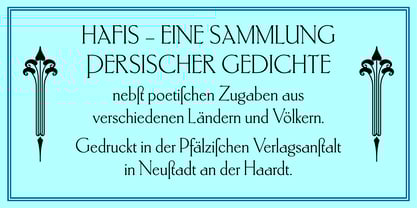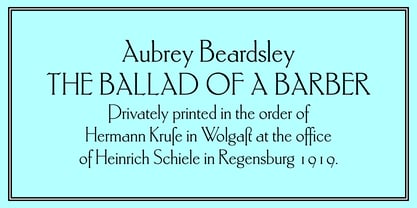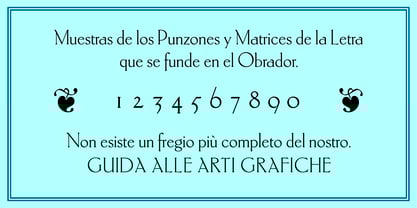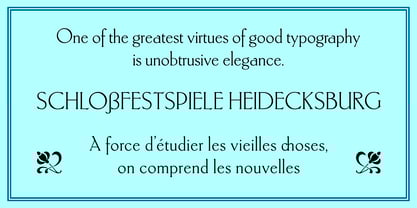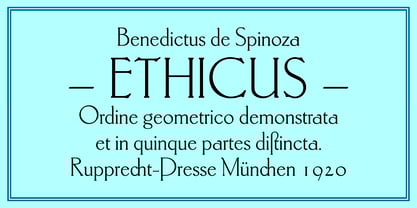
Ehmcke Elegance™
by RMU
The Ehmcke Elegance Font Family was designed by Ralph M. Unger, F.H. Ehmcke and published by RMU. Ehmcke Elegance contains 1 styles.
Fritz Helmuth Ehmcke accomplished his highly esteemed font for the Flinsch Foundry, Franfurt on Main, which released it in 1908. This beautiful typeface was redrawn und redesigned for modern use. It comes with the long s, a lot of ligatures, standard as well as discretionary, and an uppercase German double-s. Please use the available OT-features accordingly. The long s can be reached either by typing the integral sign [ ∫ ] or by changing the round s via the OT-feature Historical Forms.
Designers: Ralph M. Unger, F.H. Ehmcke
Publisher: RMU
Foundry: RMU